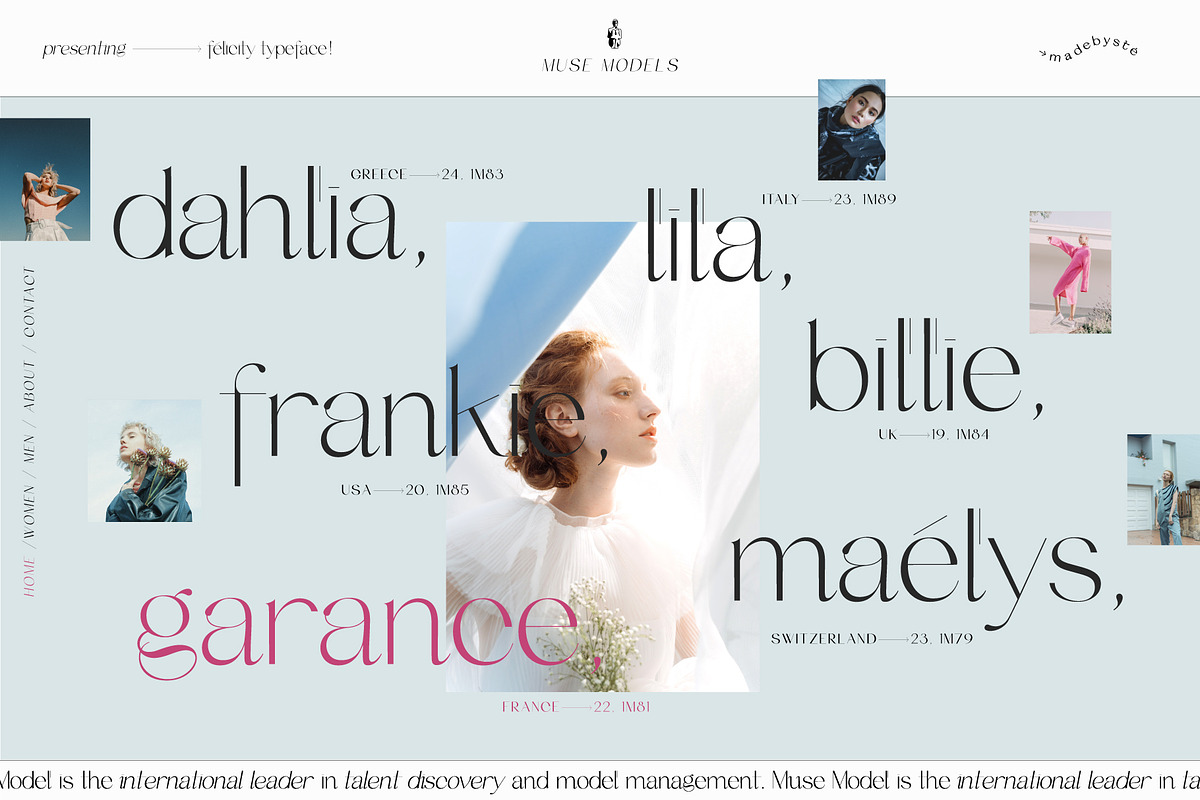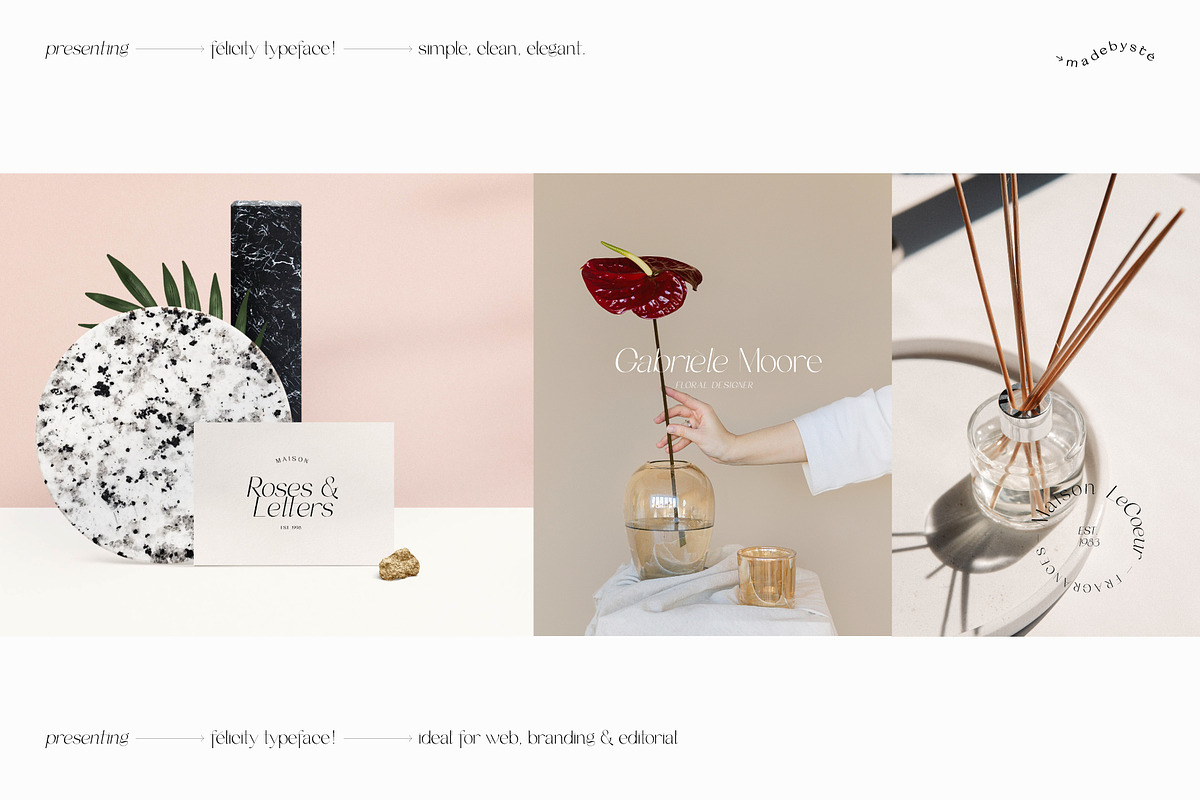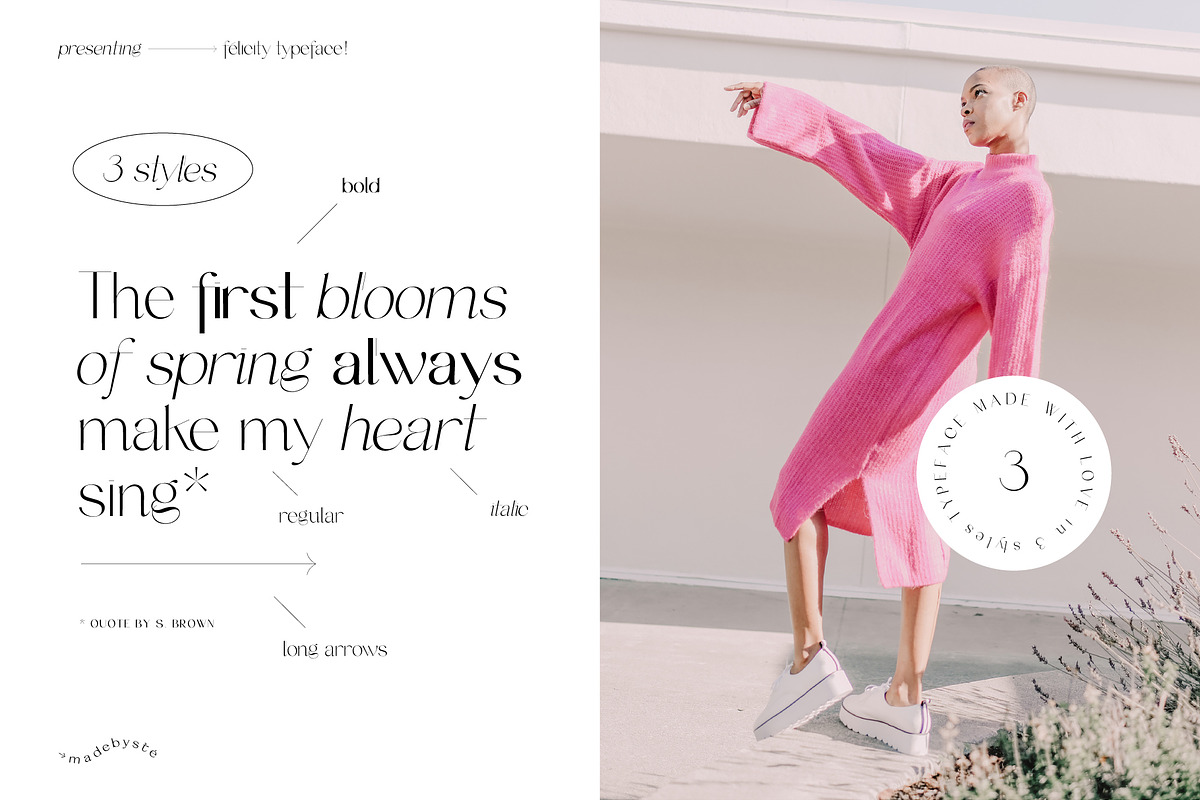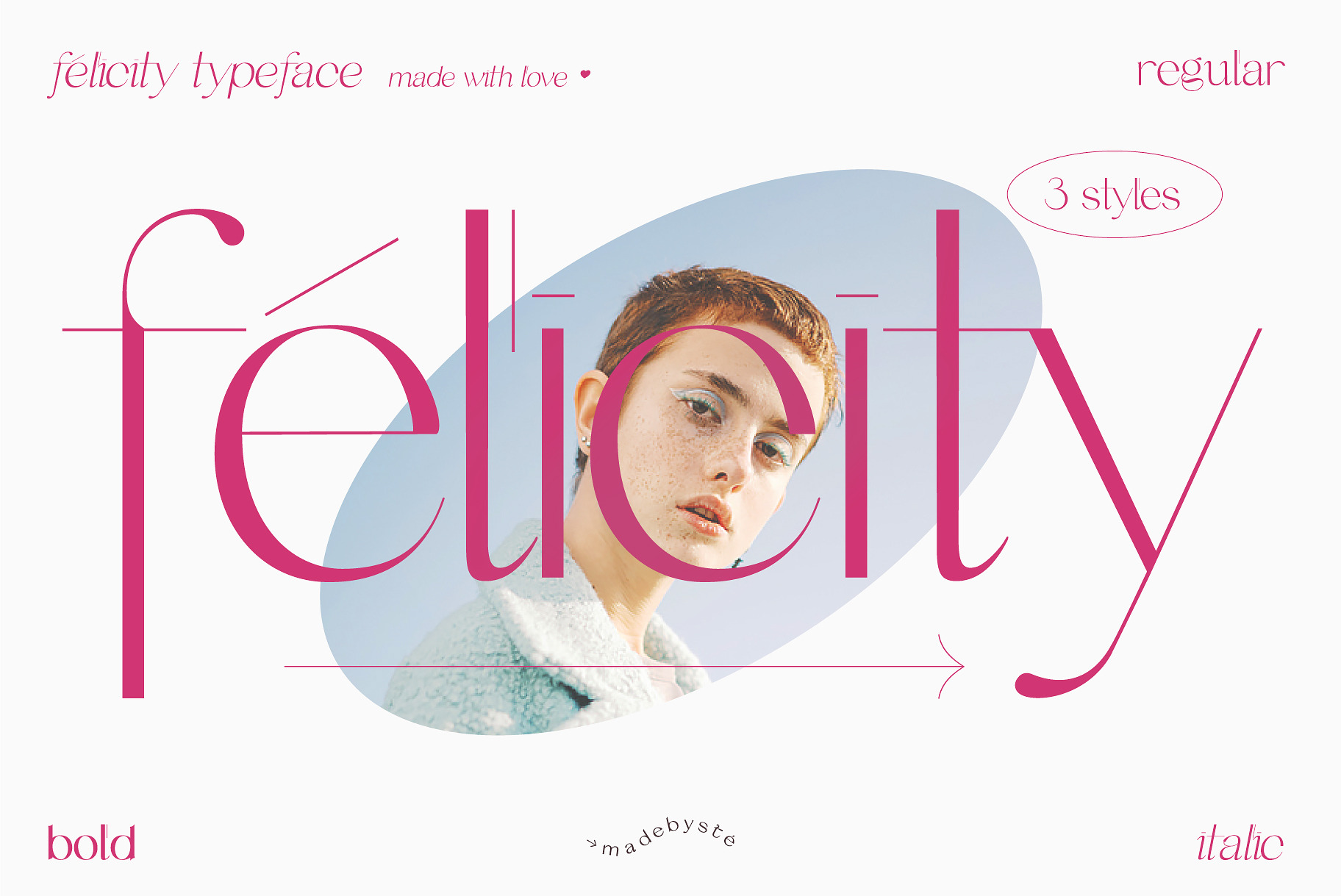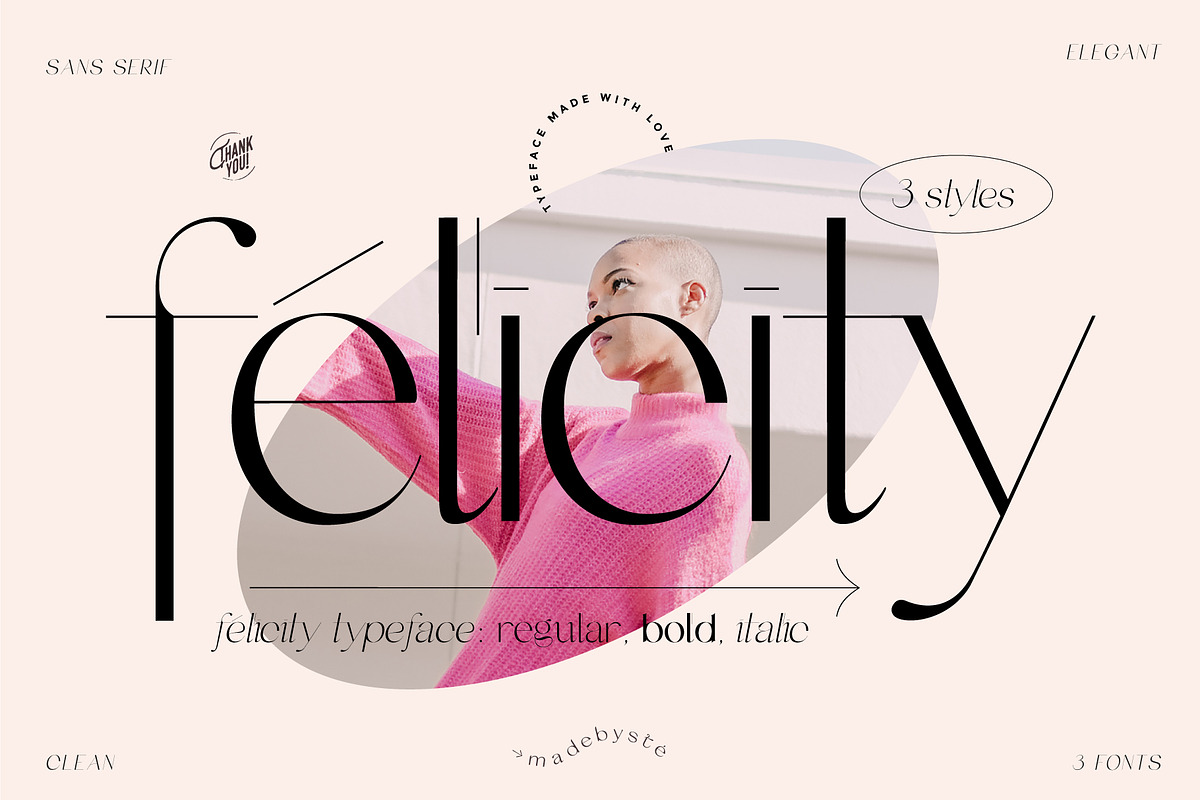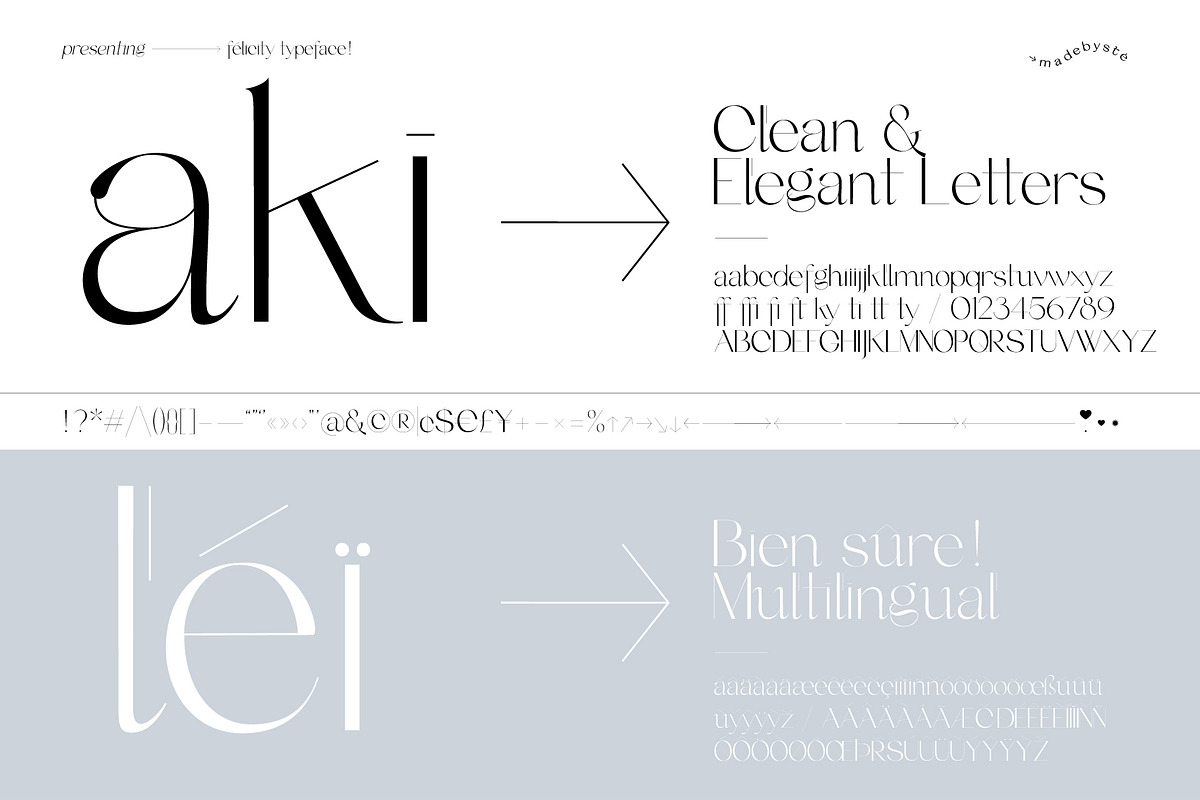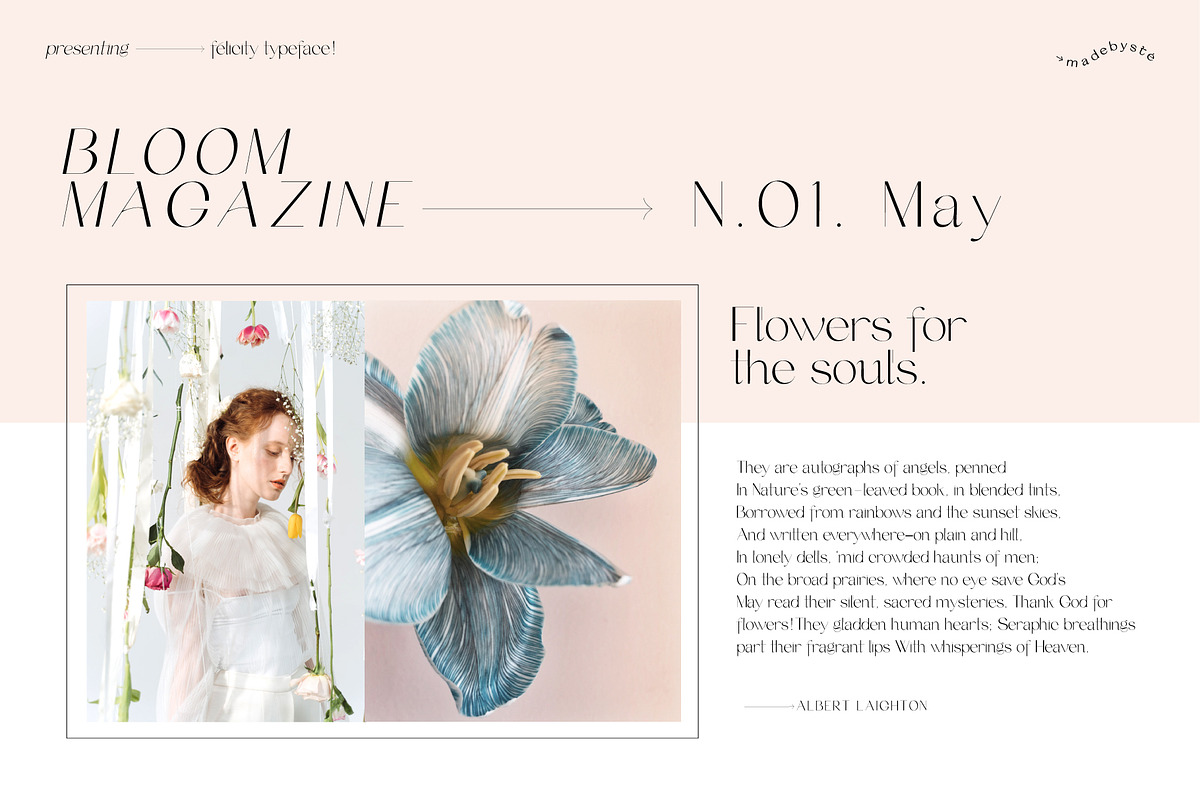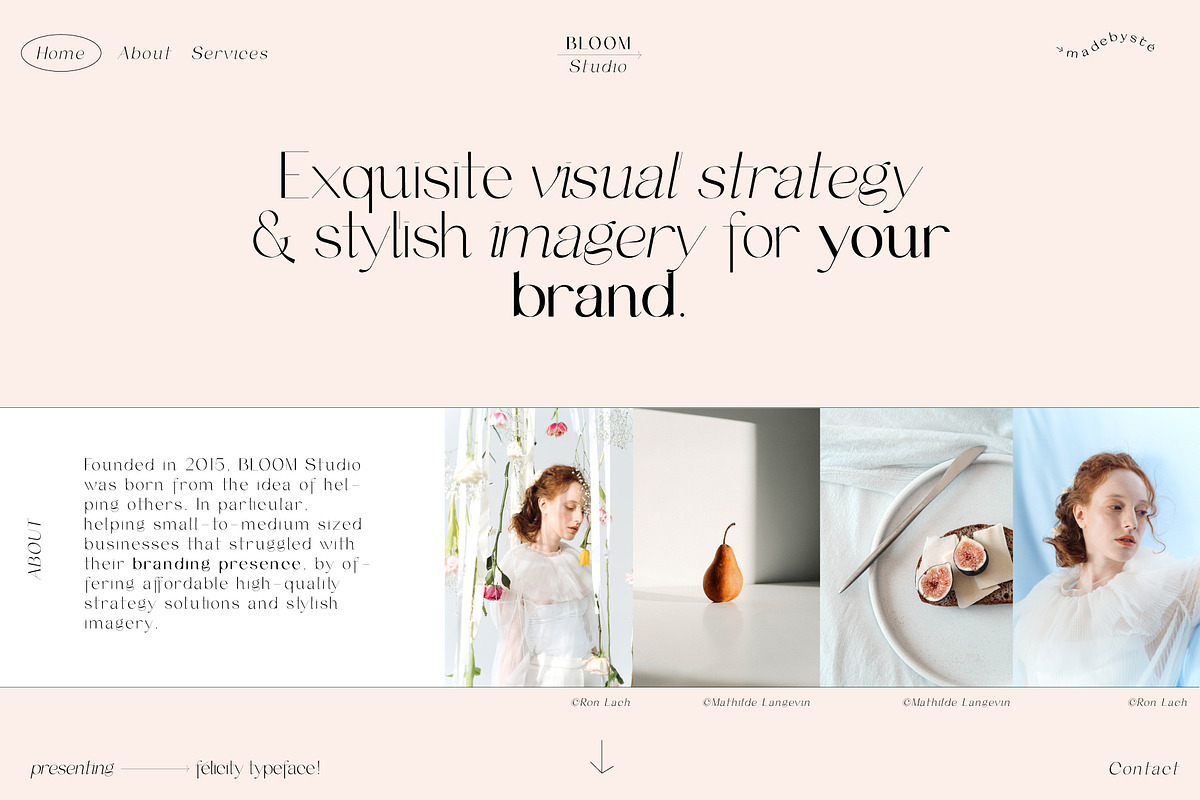
FELICITY — 3 ELEGANT FONTS
Félicity ↠ Modern • Chic • Clean.
Félicity is a timeless modern chic Typeface. It's a mix between a serif and a sans serif. It has no specific gender. It has beautiful contrasts and that's make it very pure. Give your text a bit of elegance and sweetness. This font is ideal for branding, editorial design and web design. Mix the 3 styles and have fun!
• Upper/lower case, numbers, punctuation and multilingual support. • Set of arrows included • Italic + Bold styles included.